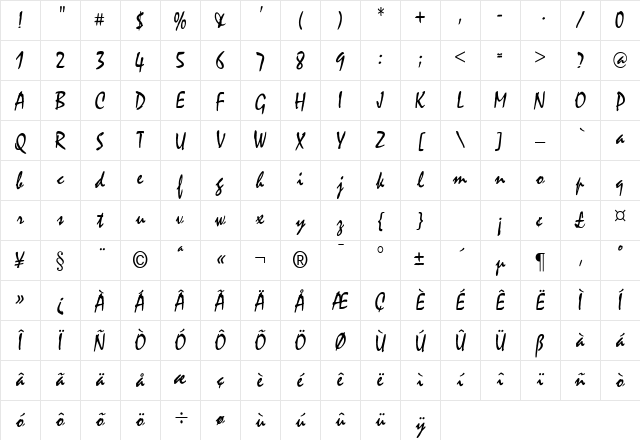
Mystic Condensed Normal Free Font
Mystic Condensed Normal
Mystic Condensed Family
Complete Mystic Condensed Normal glyph index. Displaying only characters natively supported by Mystic Condensed Normal font.
Design Context for Mystic Condensed
Mystic Condensed is a composed and adaptable typeface that performs quietly and consistently across a wide range of design contexts. Its narrow stance lets it pack a punch even in space-constrained designs.